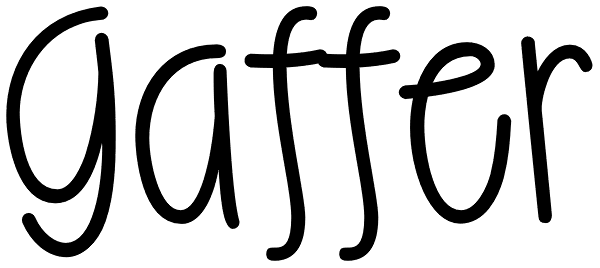
Gaffer
Gaffer is a simple little font! The backward slant, large x-height and short ascenders/descenders give the font a casual handwritten look. I’ve included some extra ligatures (ffi, ffl, ff, ks, tt, tf, ft, st) which will substitute automatically when...